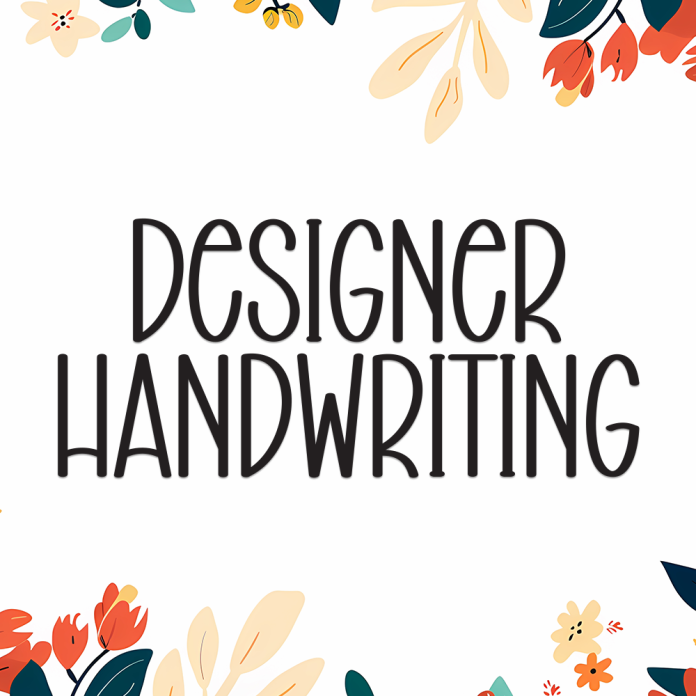
Designer Handwriting is a bold display font that combines the charm of handwriting with the flair of fashion-forward design. With its confident strokes and trendy letterforms, this font is made to stand out while keeping a personal, handcrafted touch.
Perfect for branding, magazine titles, product packaging, social media graphics, and fashion-related content, Designer Handwriting gives your projects a unique and creative edge.
Modern display style with a handwritten twist
Bold, expressive shapes designed for impact
Great for logos, headlines, posters, and designer-focused projects
Make your mark with Designer Handwriting, the display font that blends personality with polish.